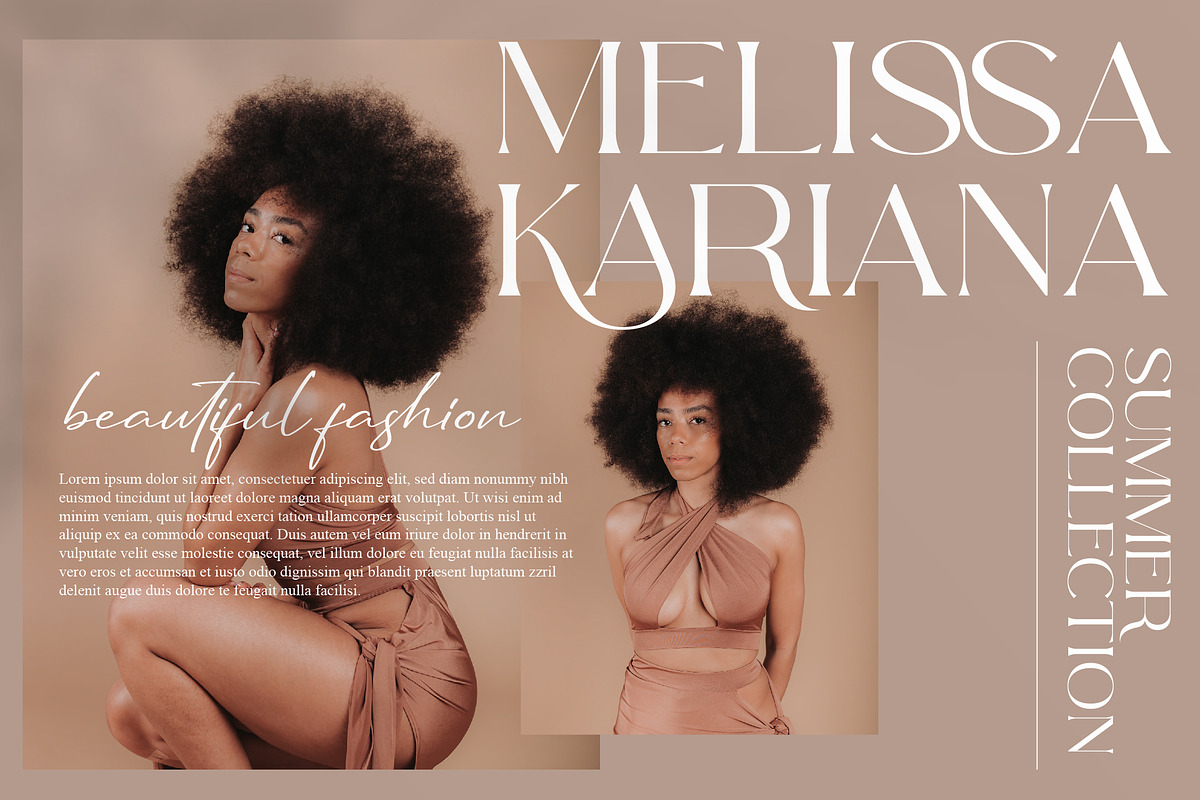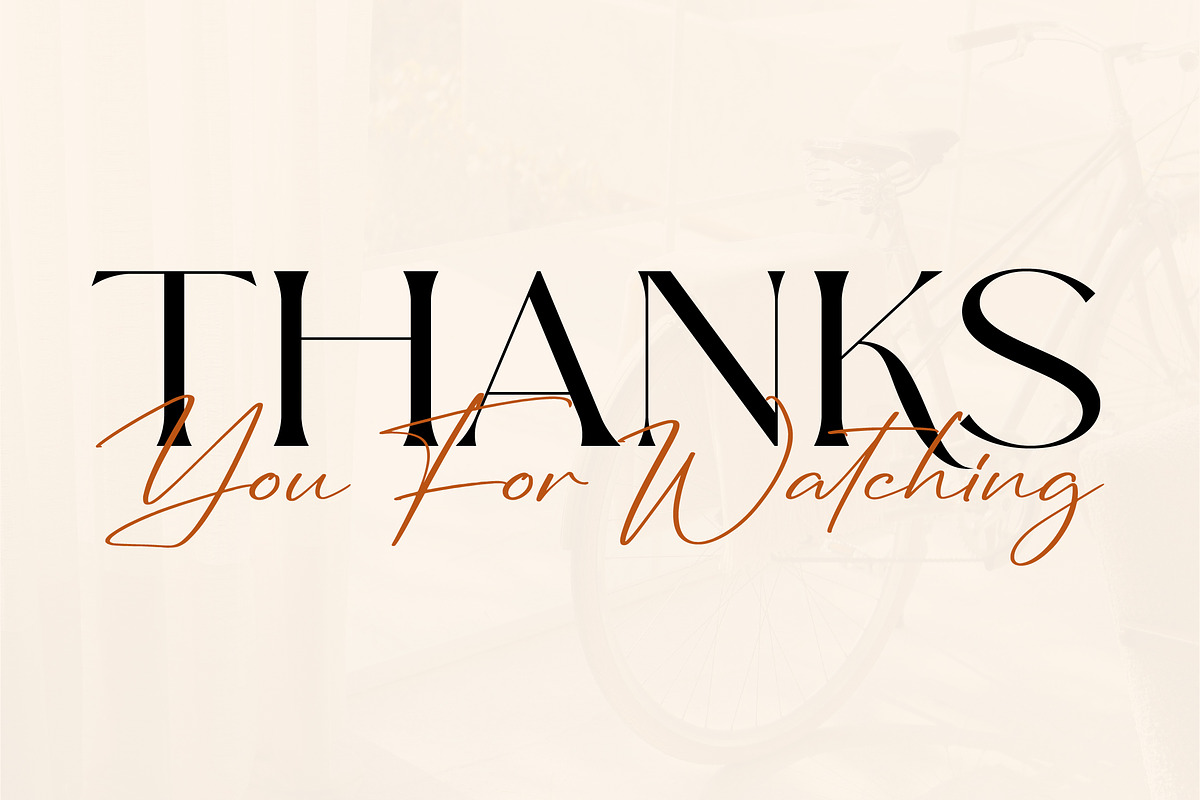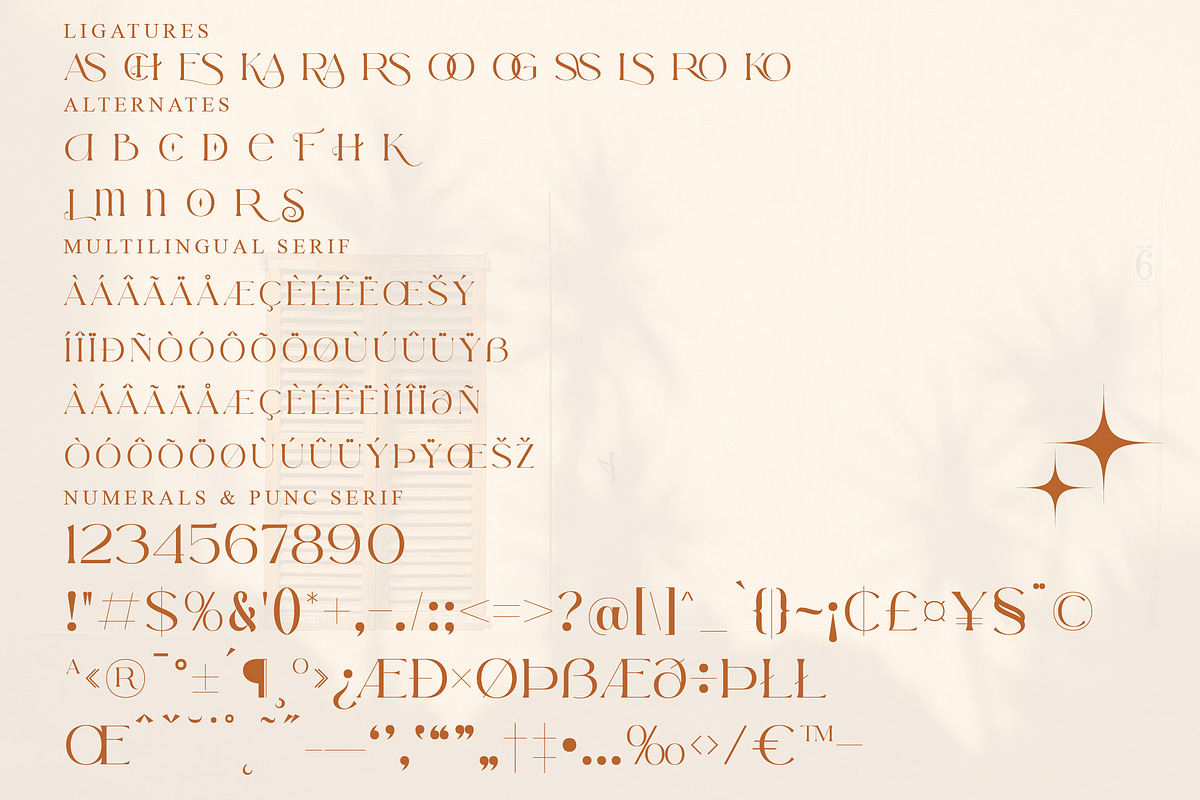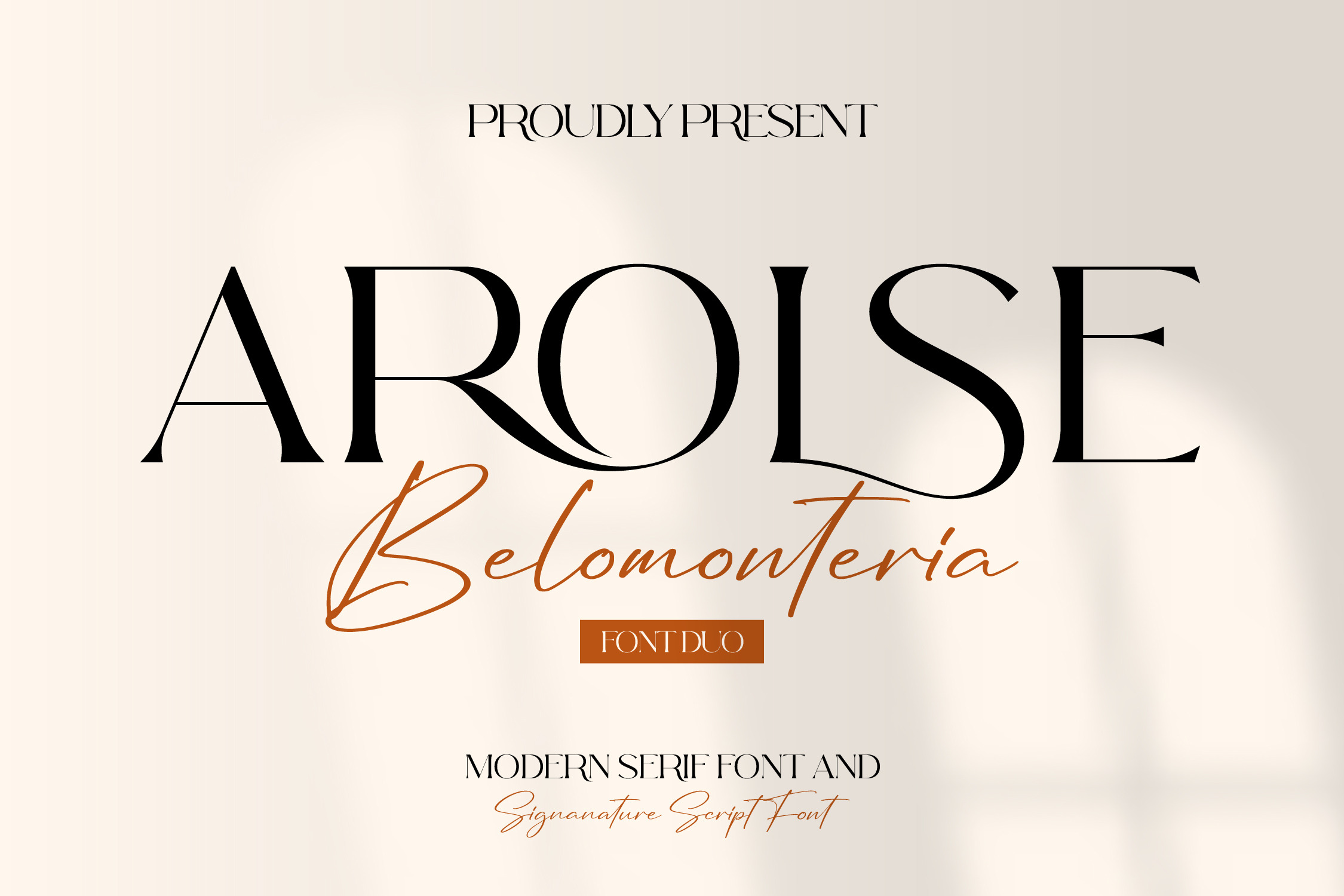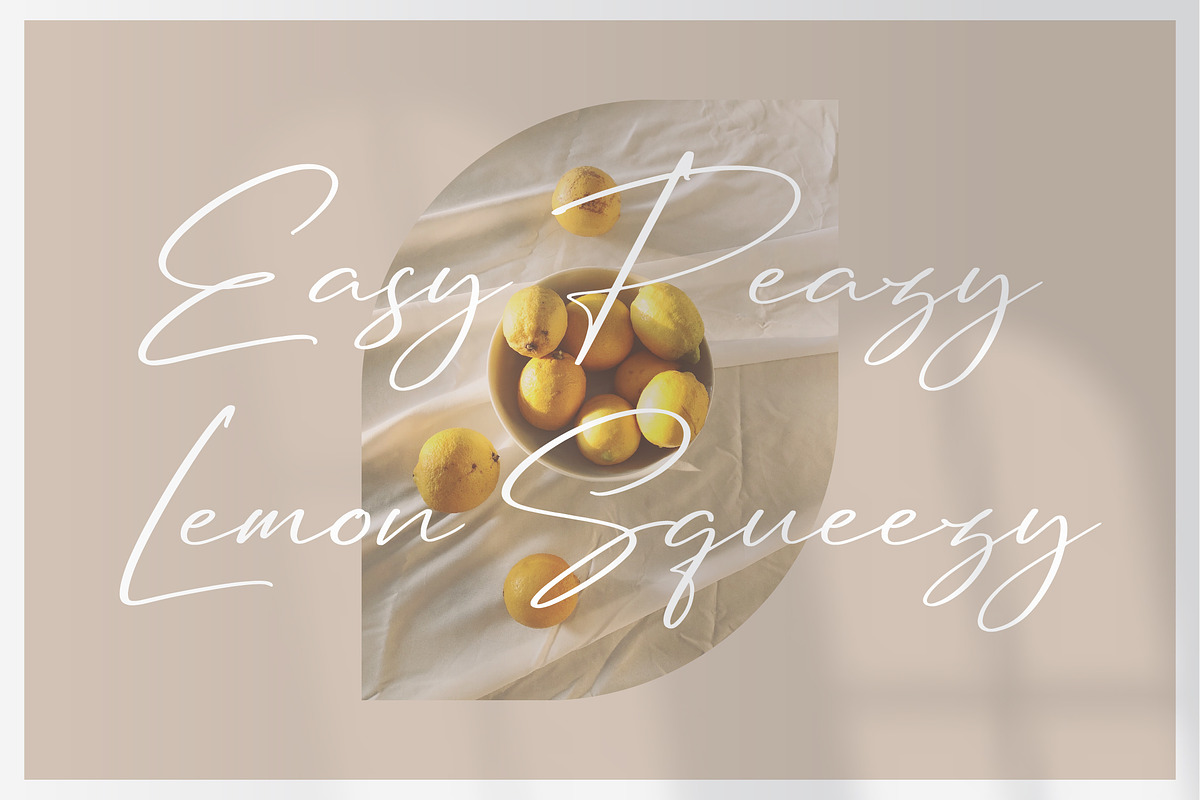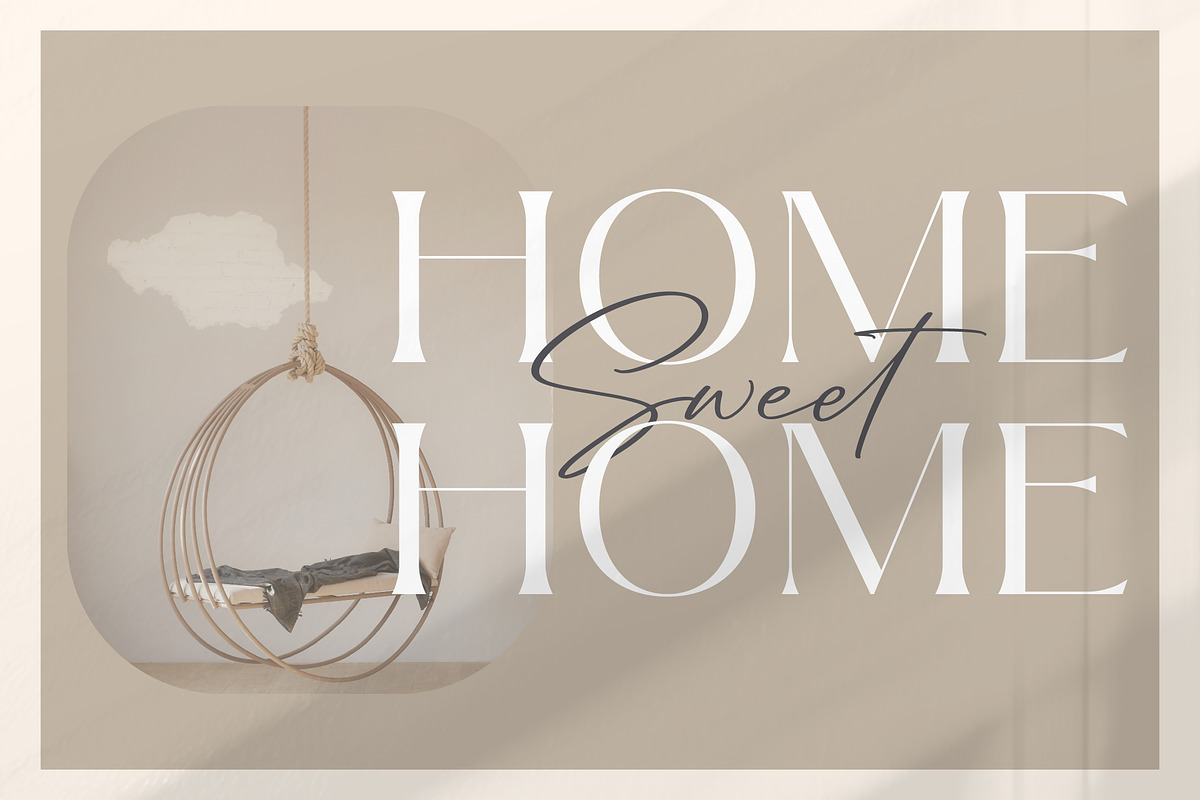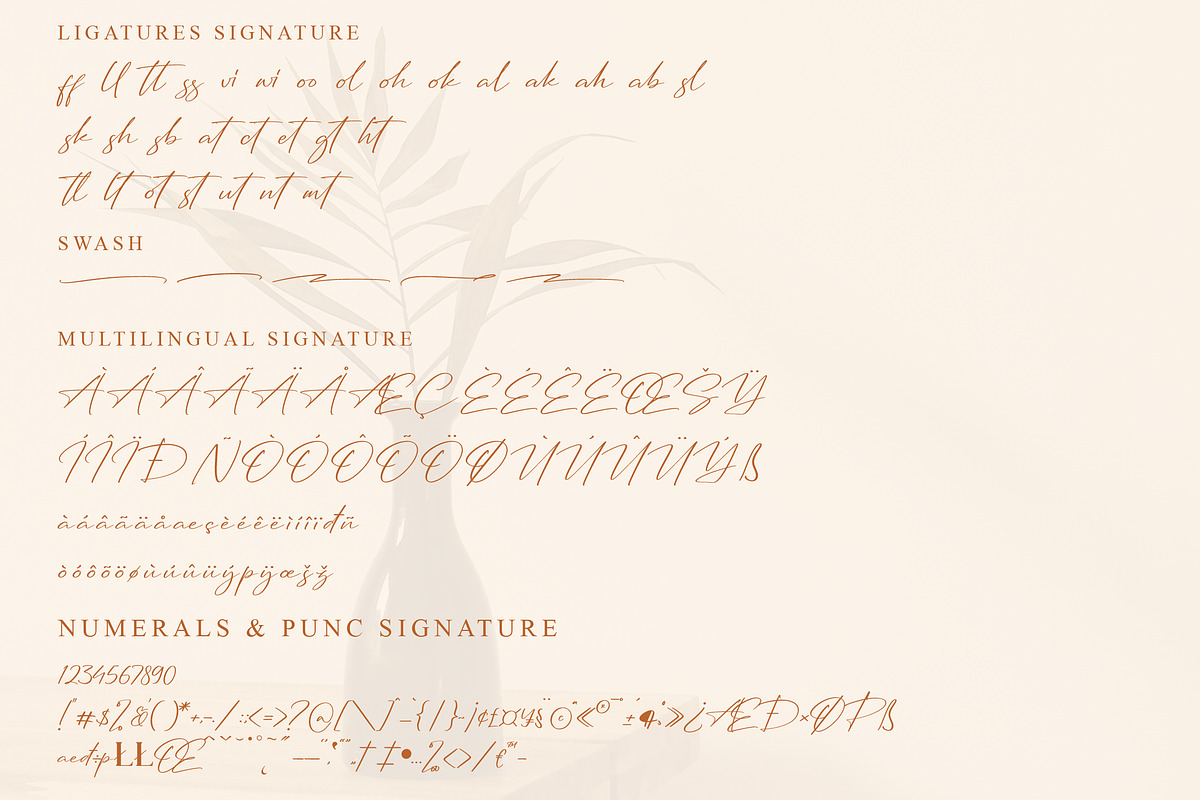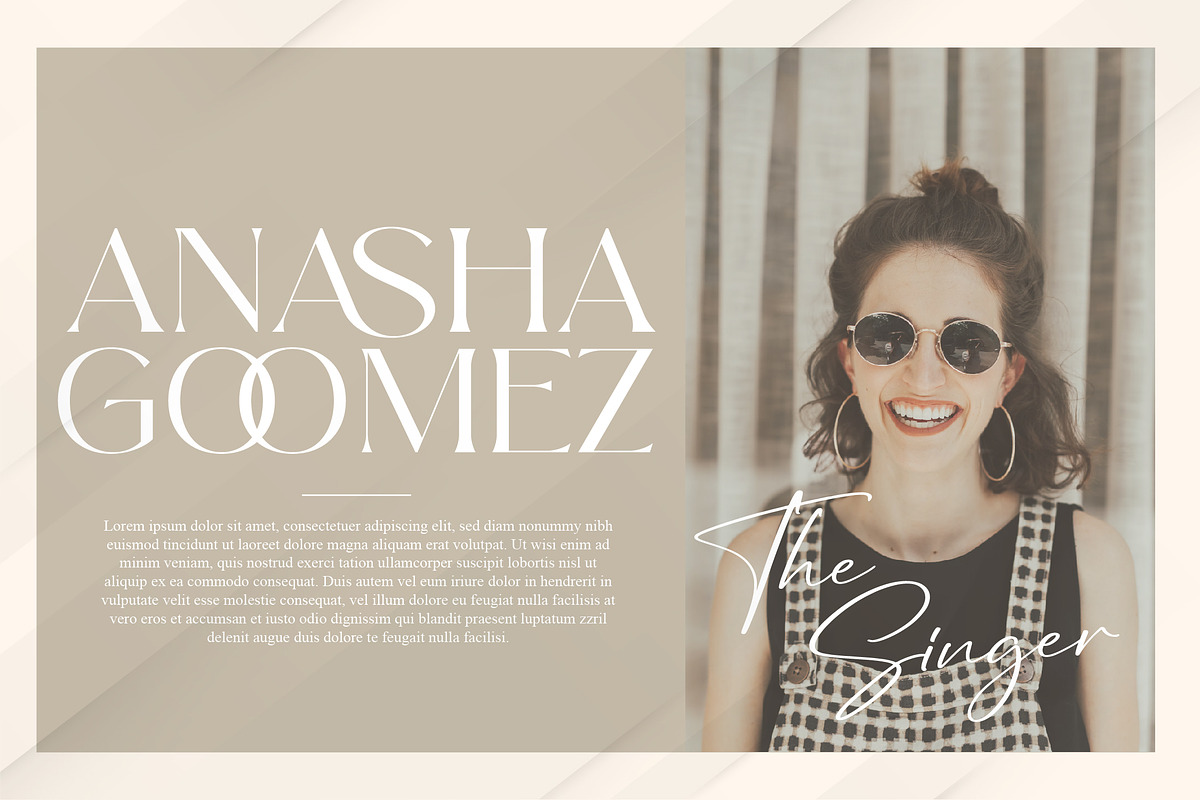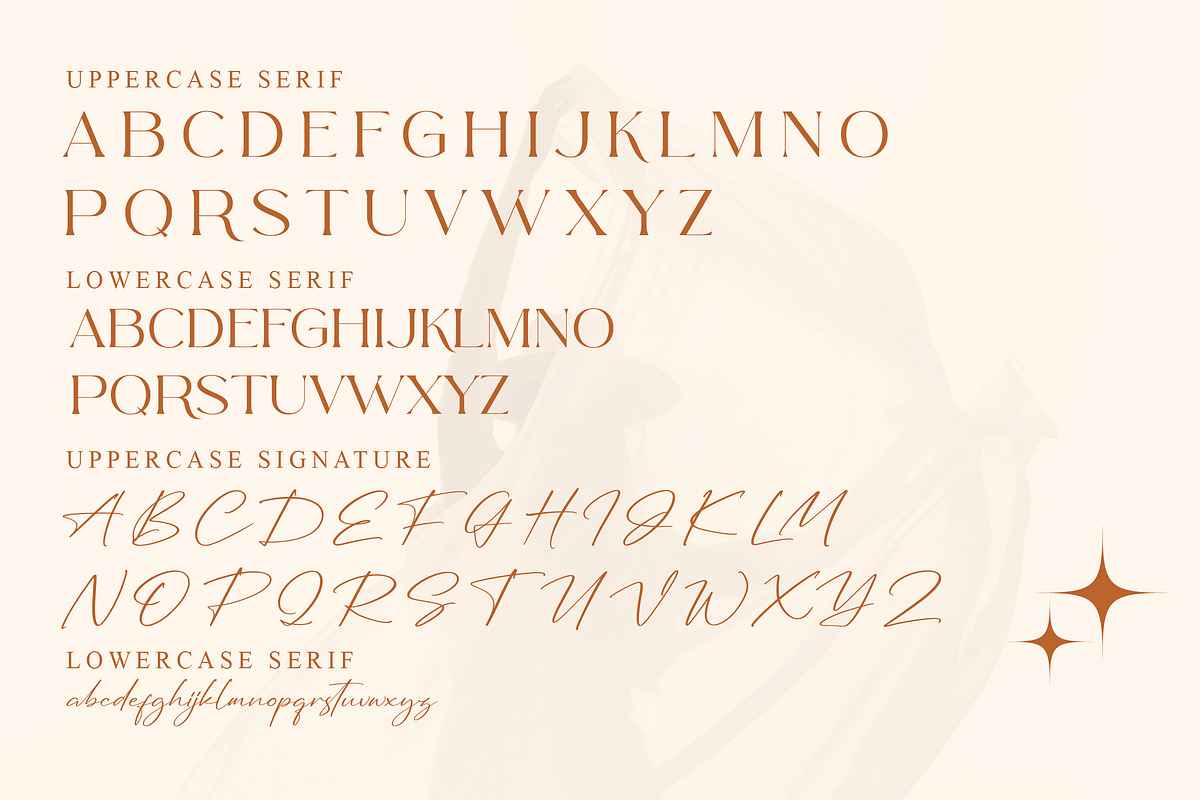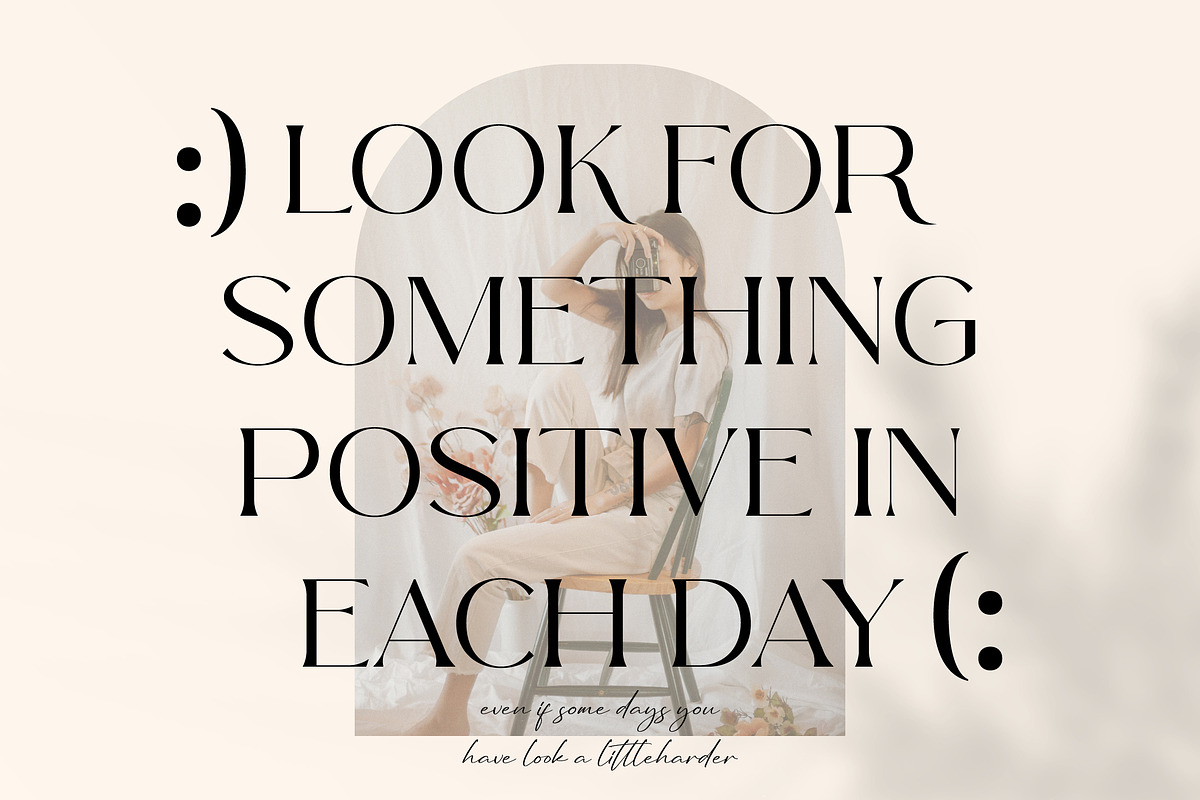
Arolse Belmonteria Font Duo
Proudly present Arolse Belmonteria Font Duo, created by Storytype, A serif modern and classic typeface that has own unique style & modern look. This typeface is perfect for an elegant & luxury logo, book or movie title design, fashion brand, magazine, clothes, lettering, quotes, and so much more.